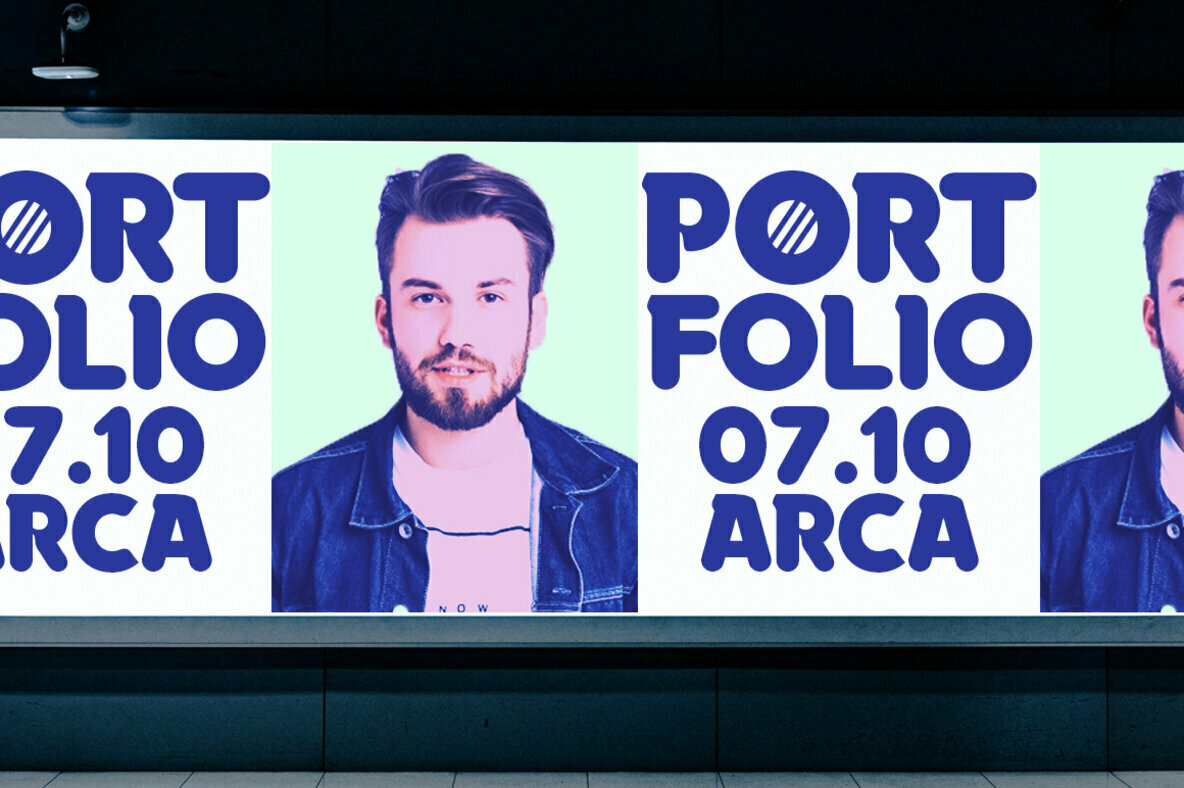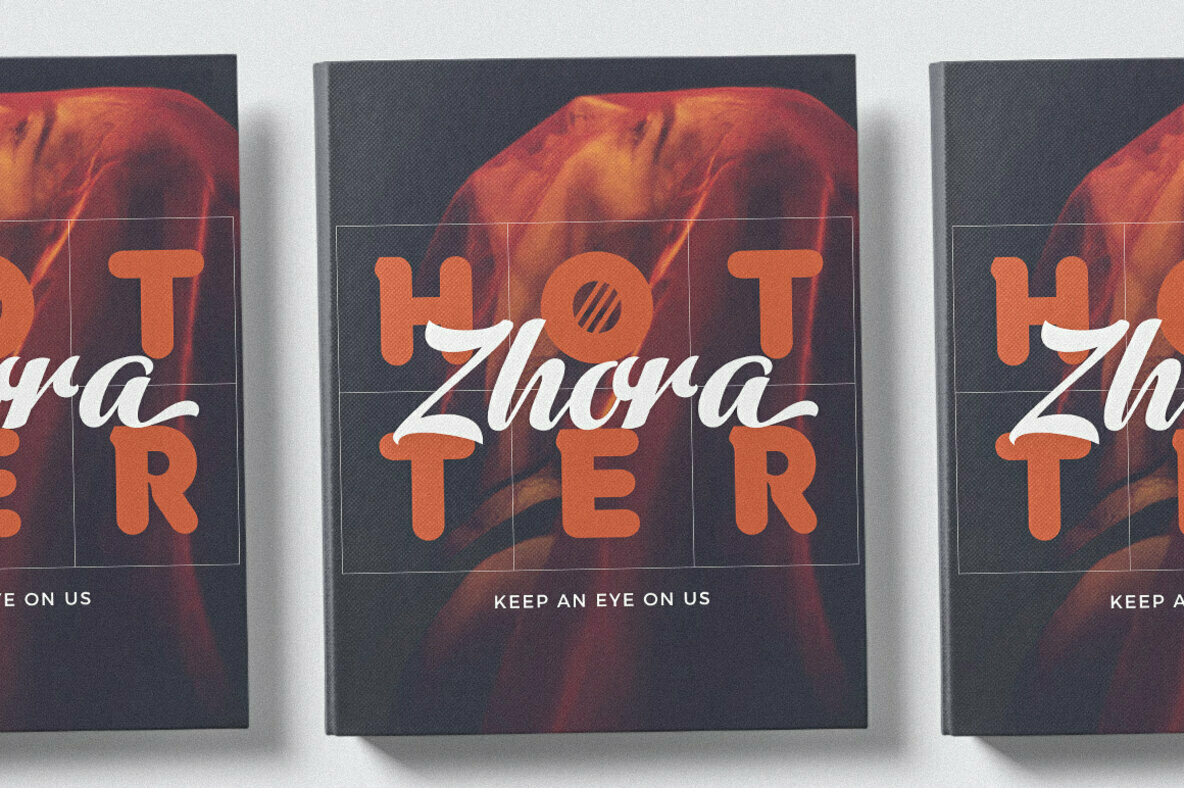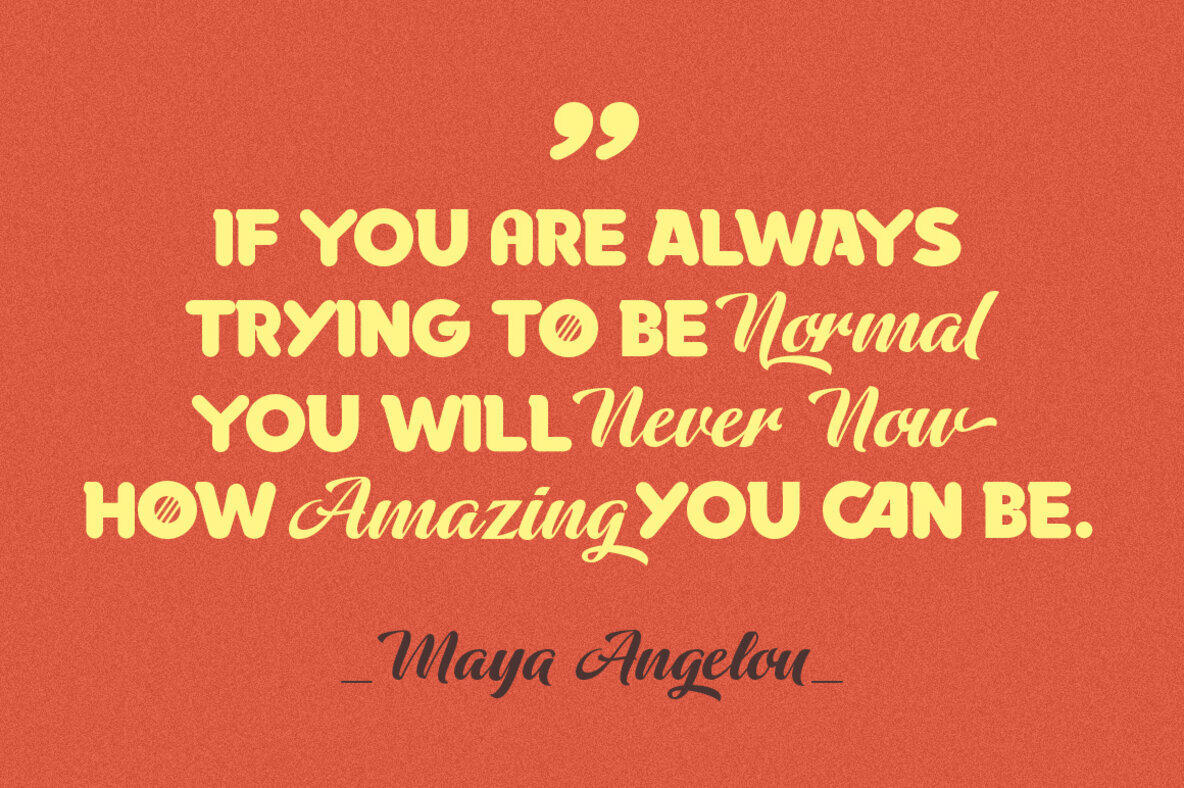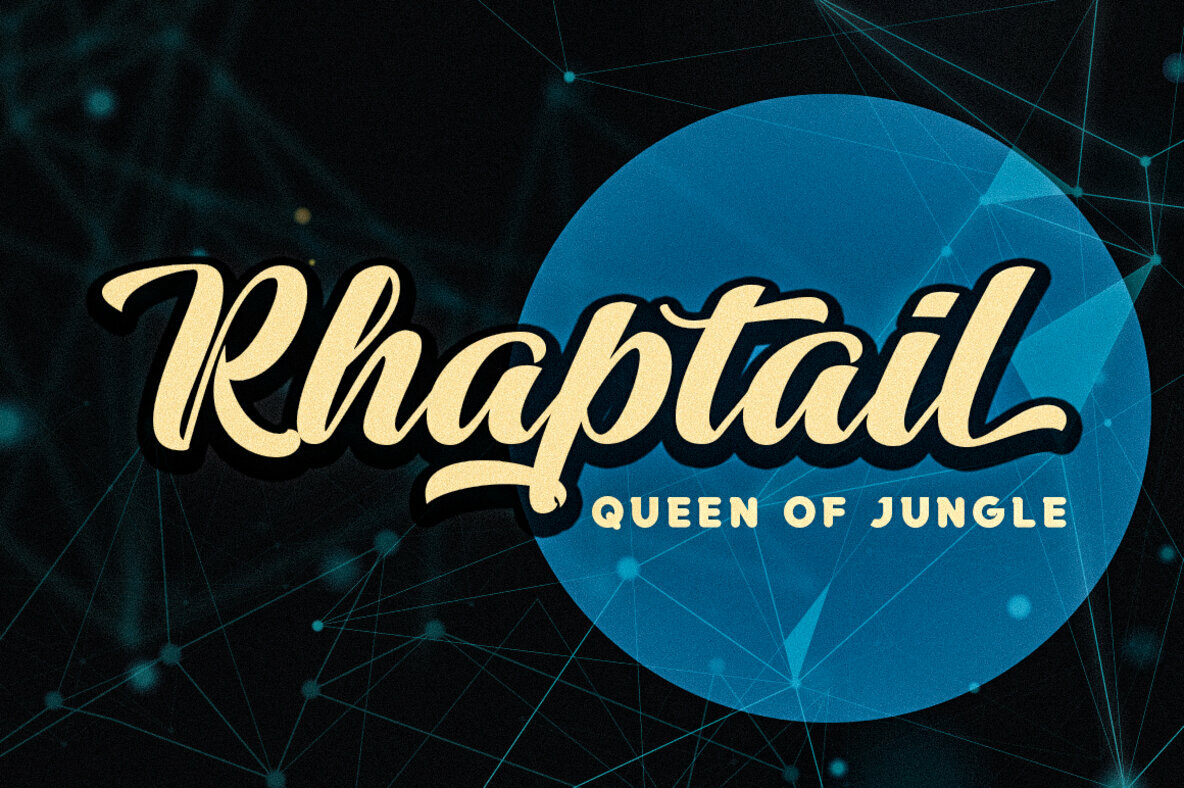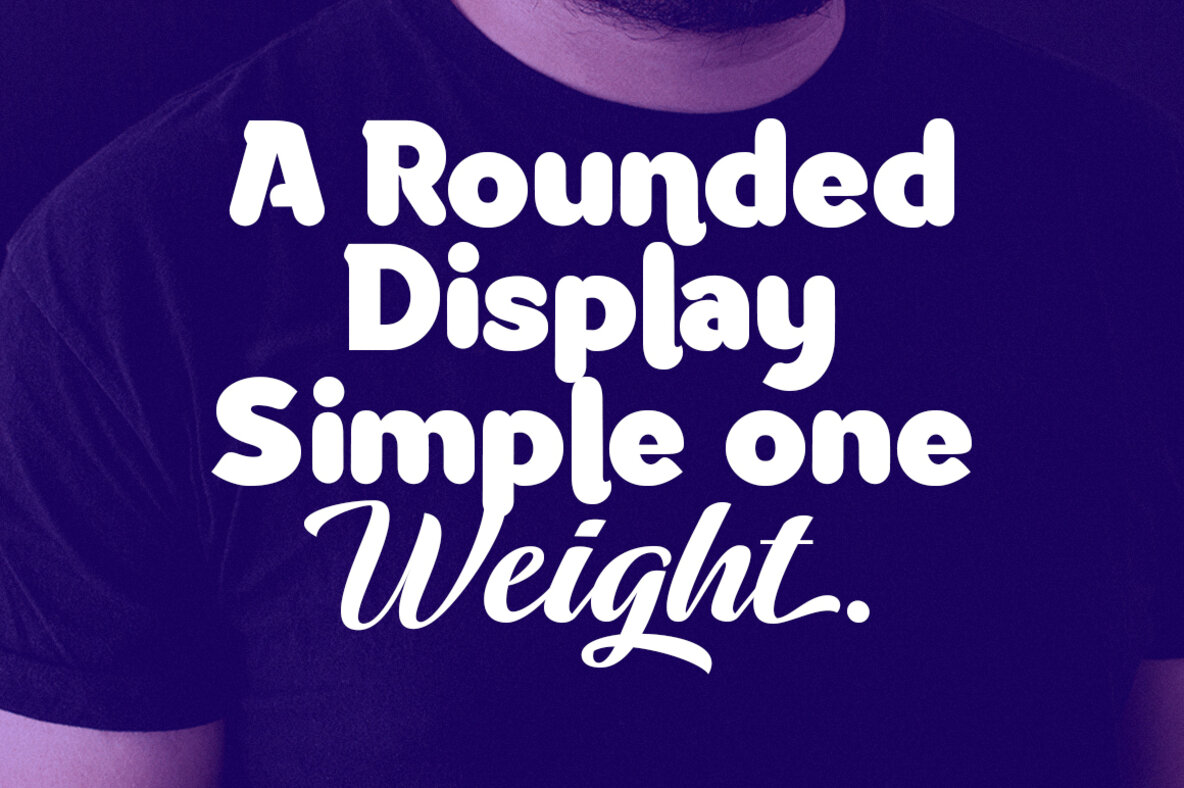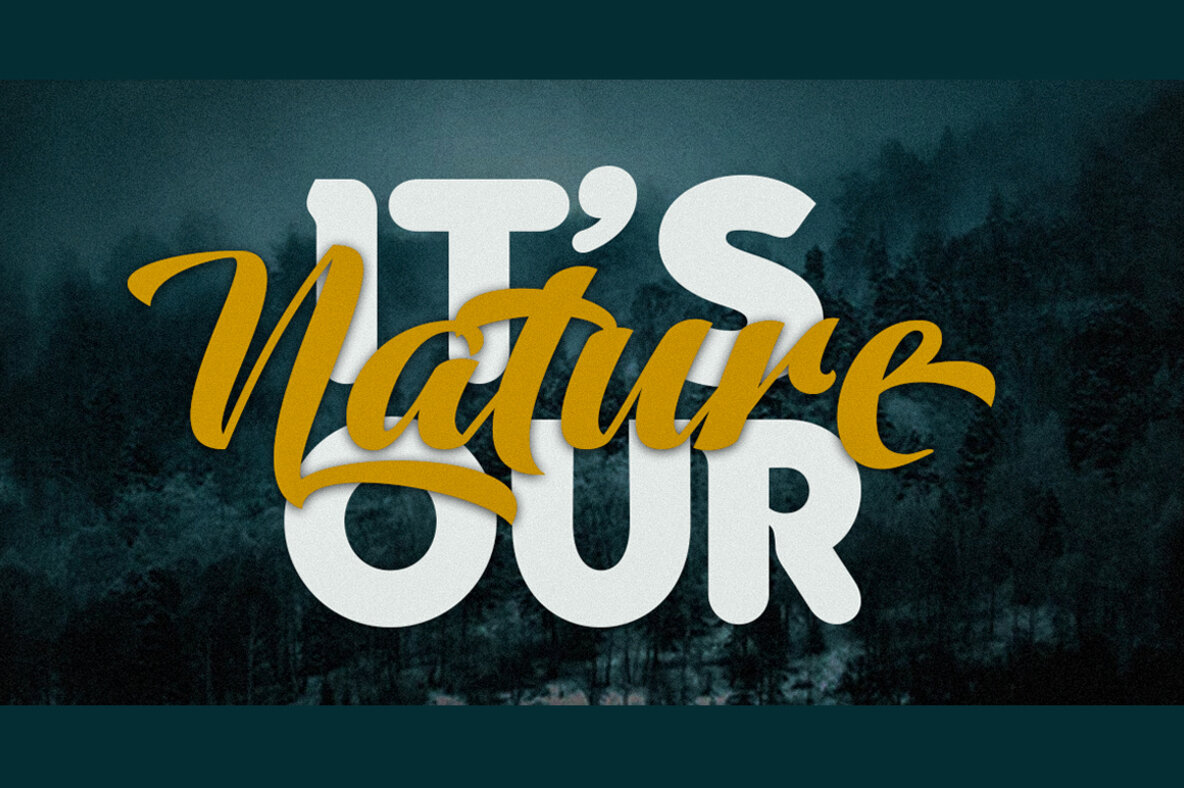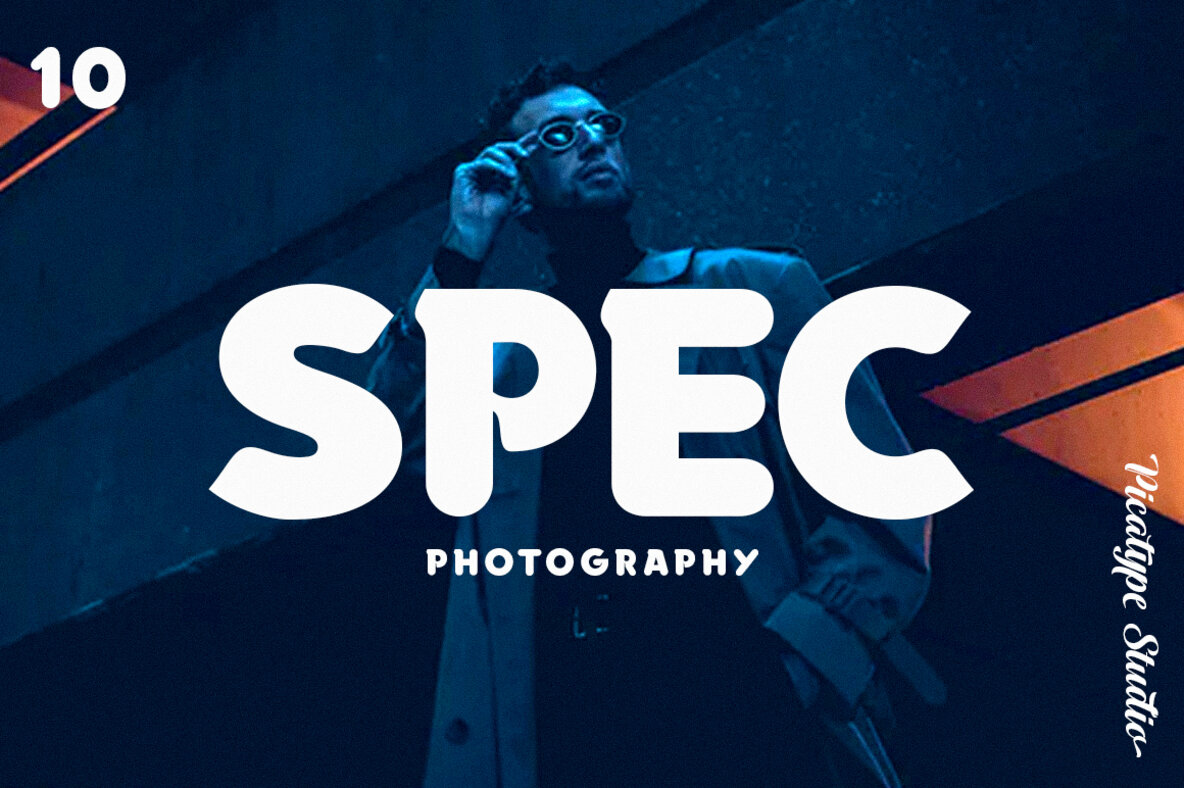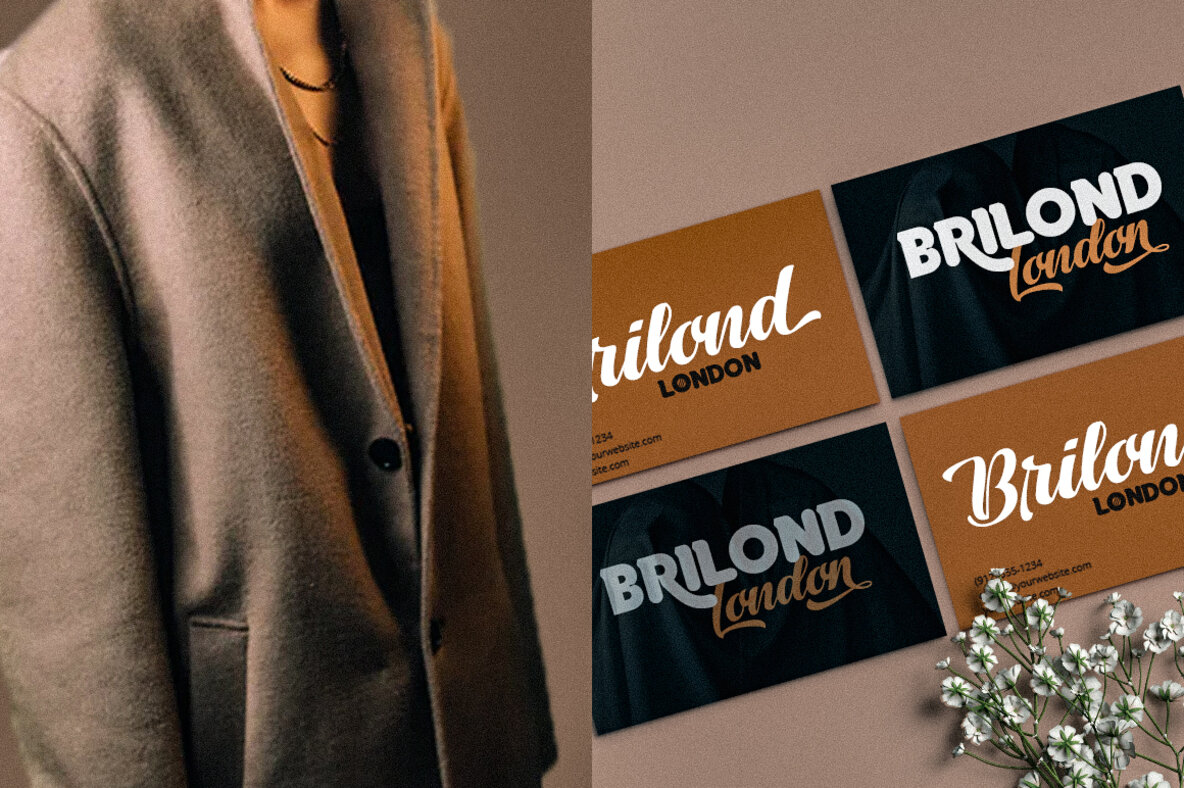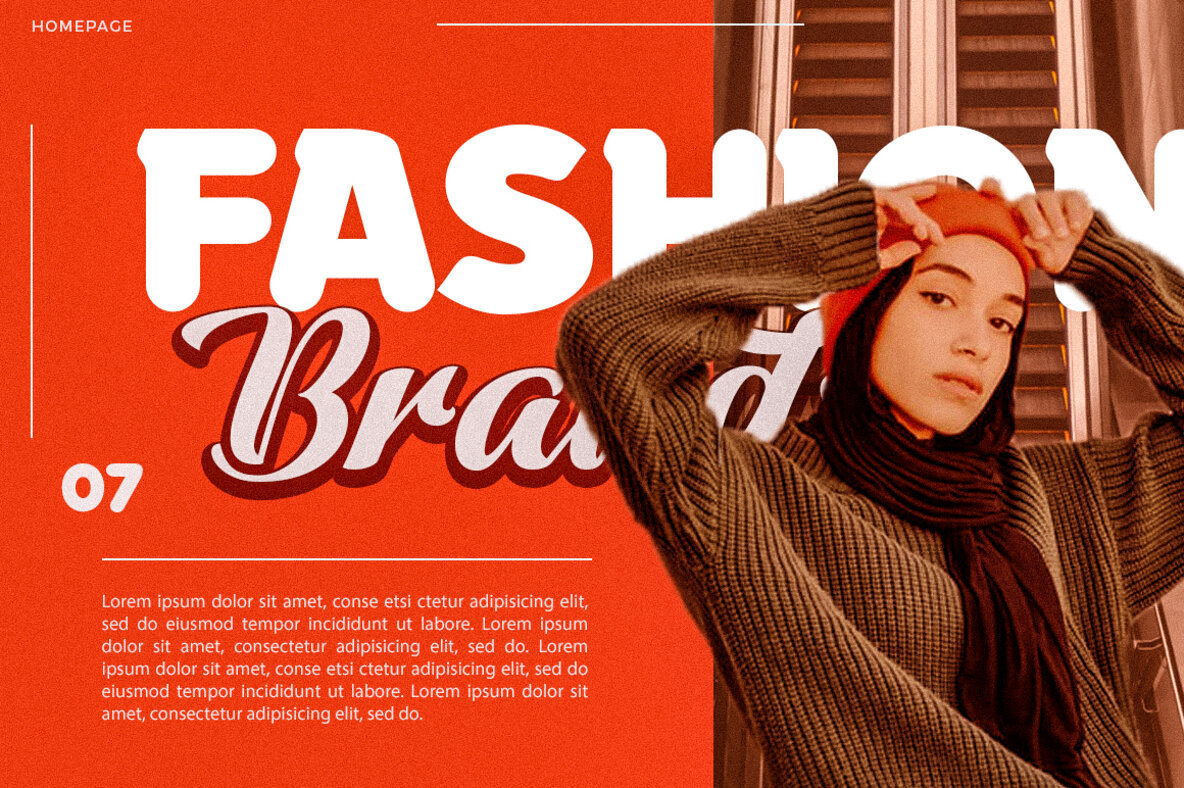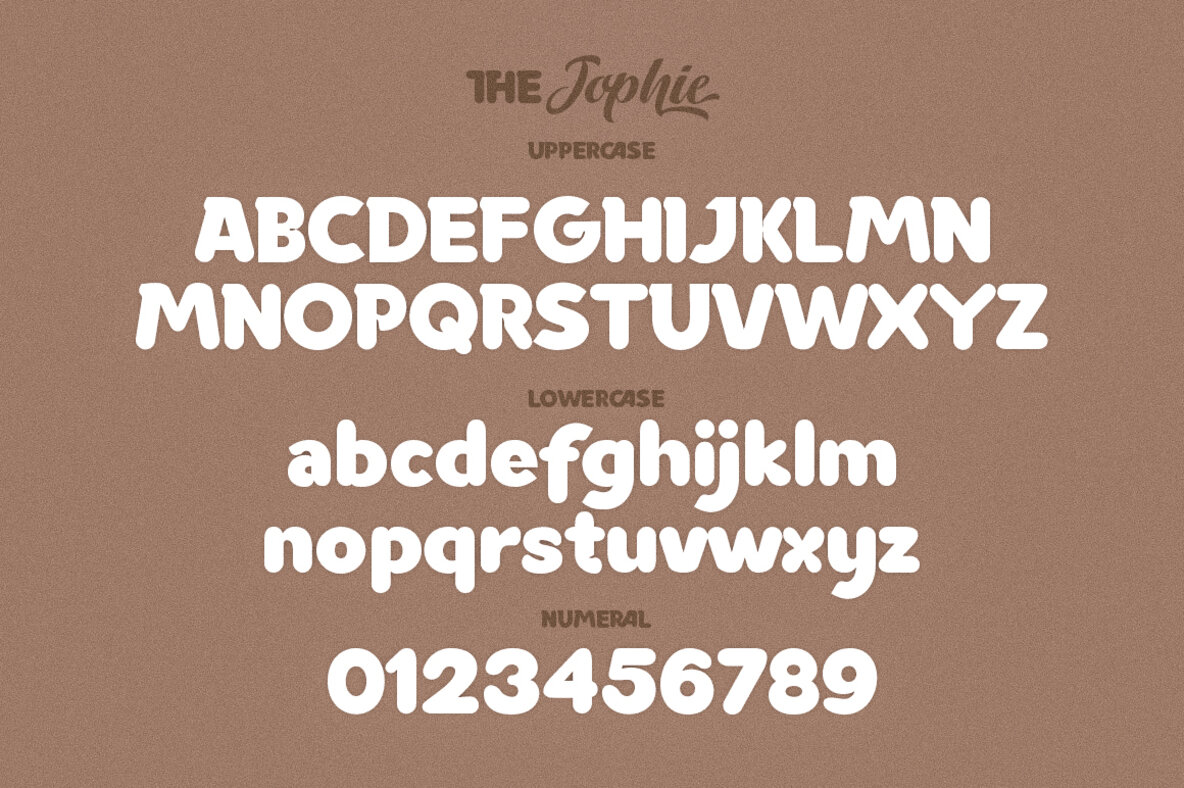
The Jophie Font Duo
The Jophie Font Duo, crafted to offer elegance and modernity, combines a script with a sans rounded font for various design needs. This dynamic typeface provides numerous alternates for each lowercase letter, allowing for creative customizations in your text. The Jophie is ideal for projects that require sophisticated typography, ensuring a beautiful harmony between script and sans elements. It's well-suited for logos, branding initiatives, wedding designs, engaging social media content, advertisements, and product designs.Jophie Font Duo: Classy Script and Sans Combination